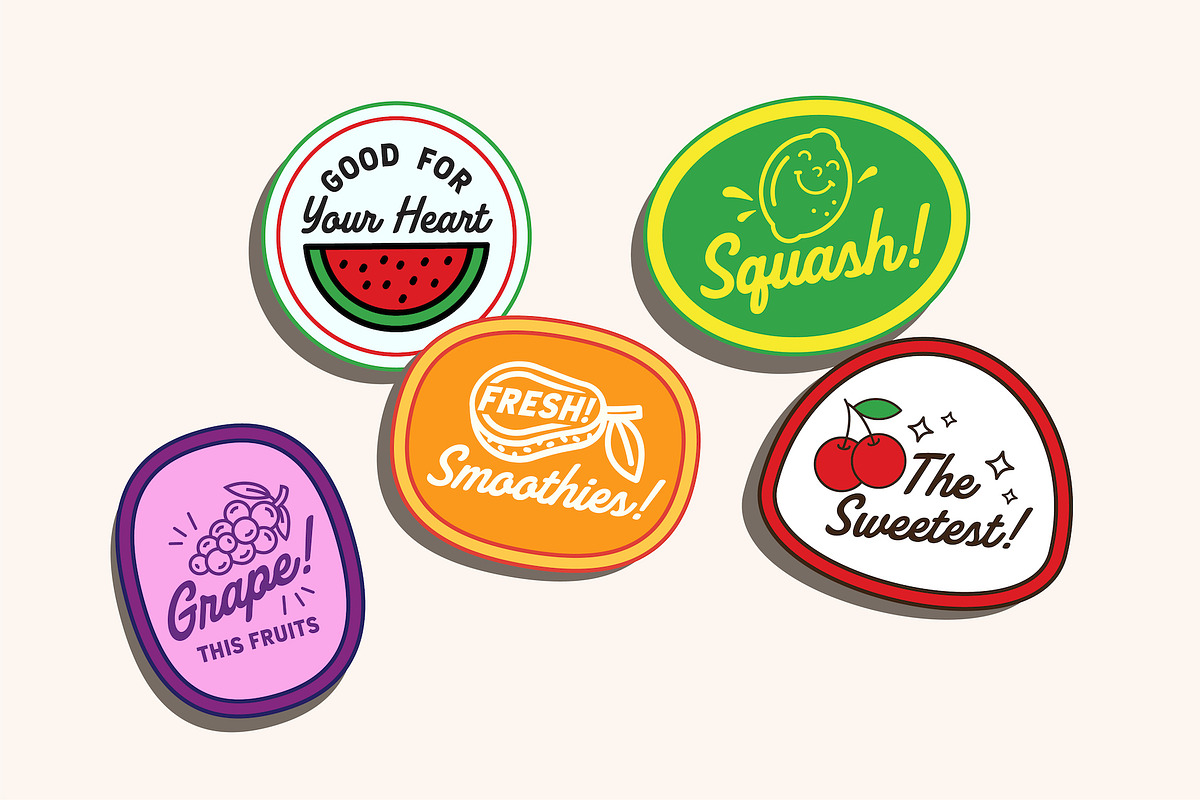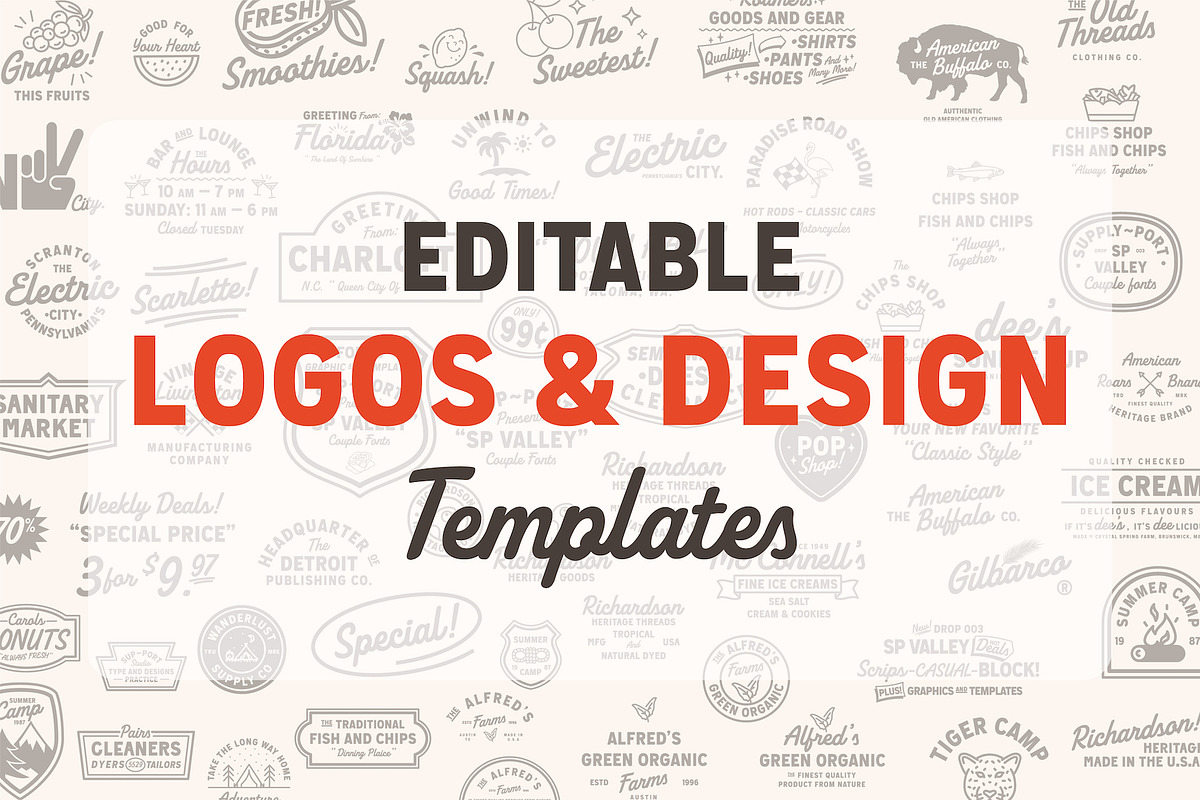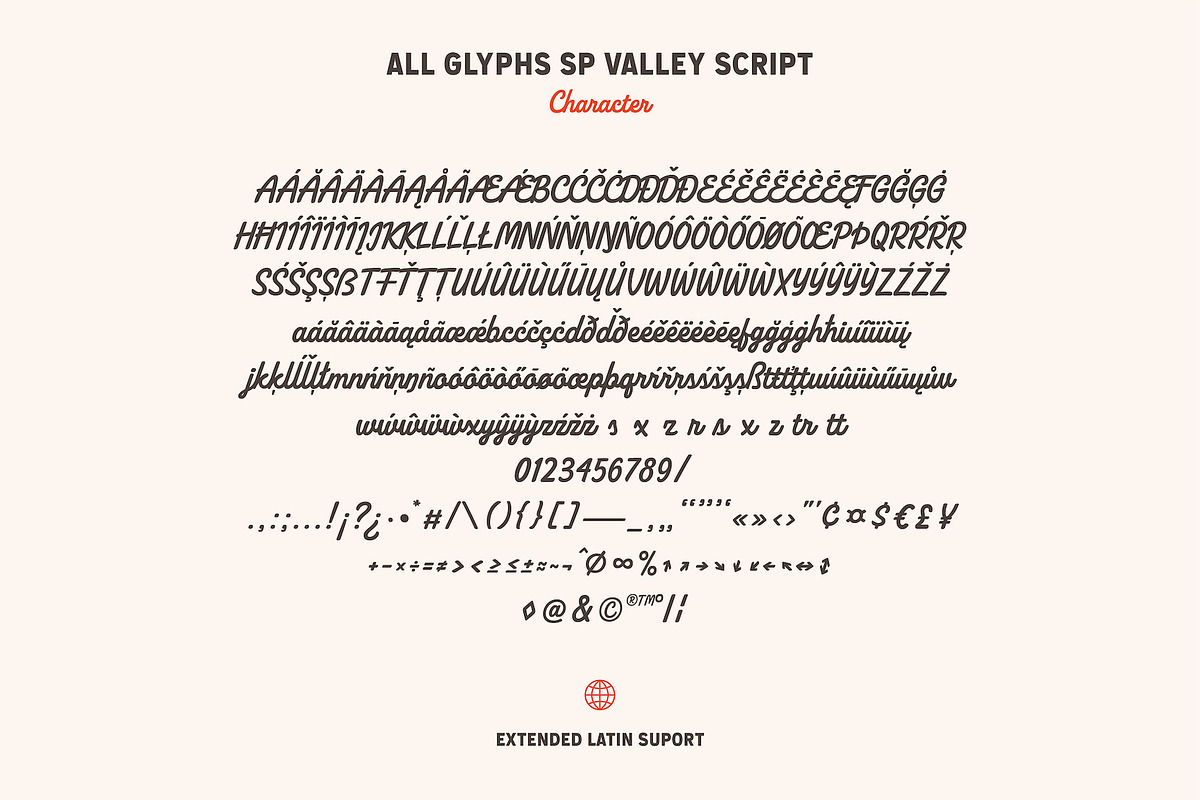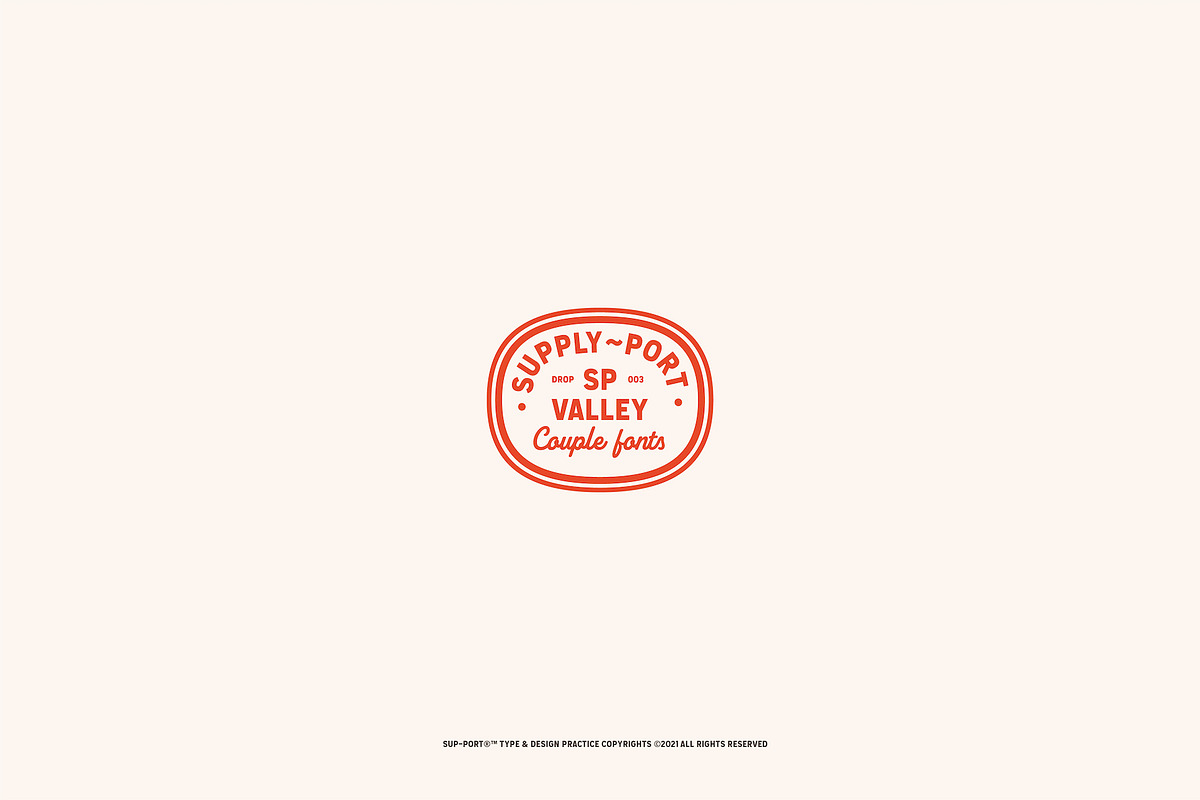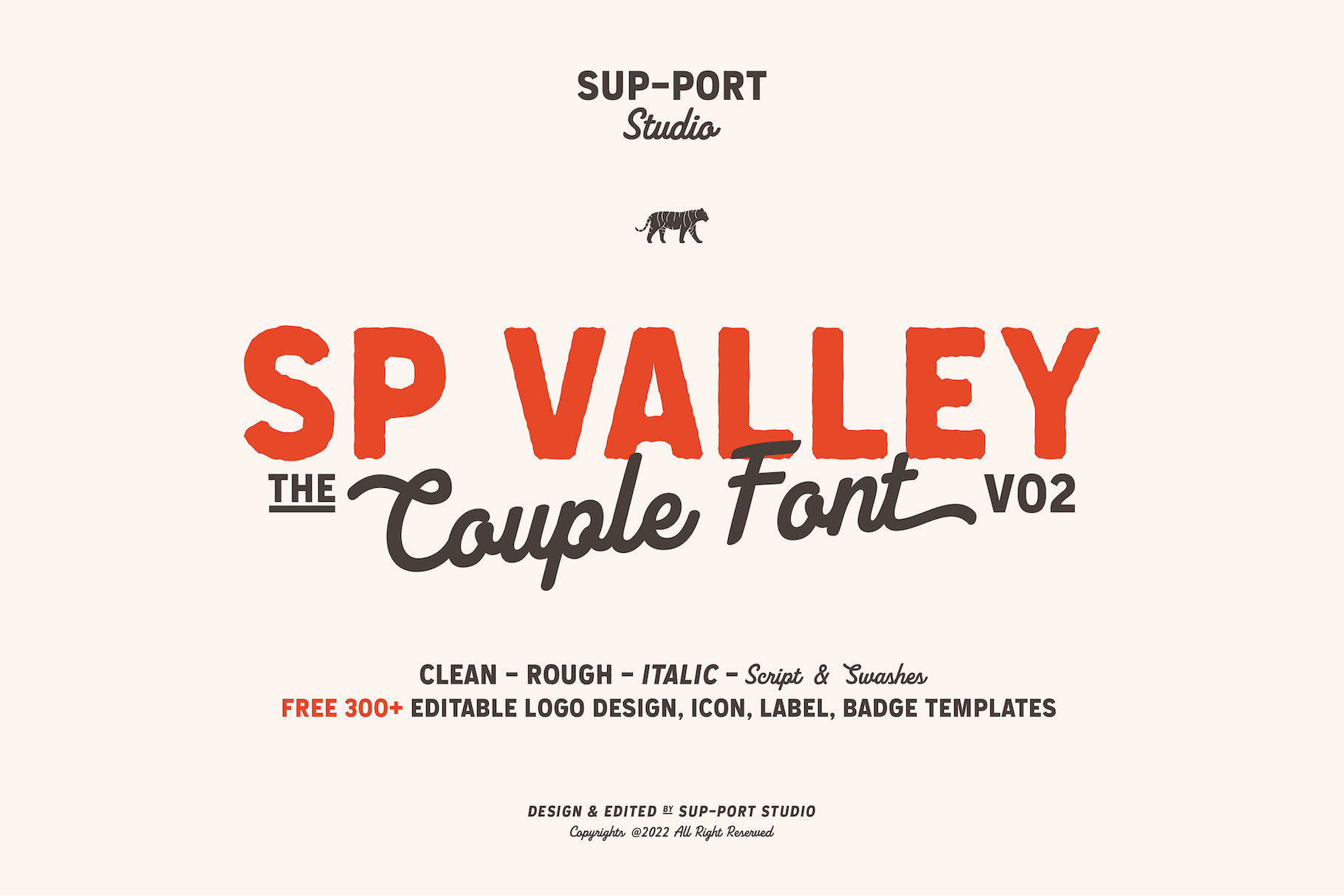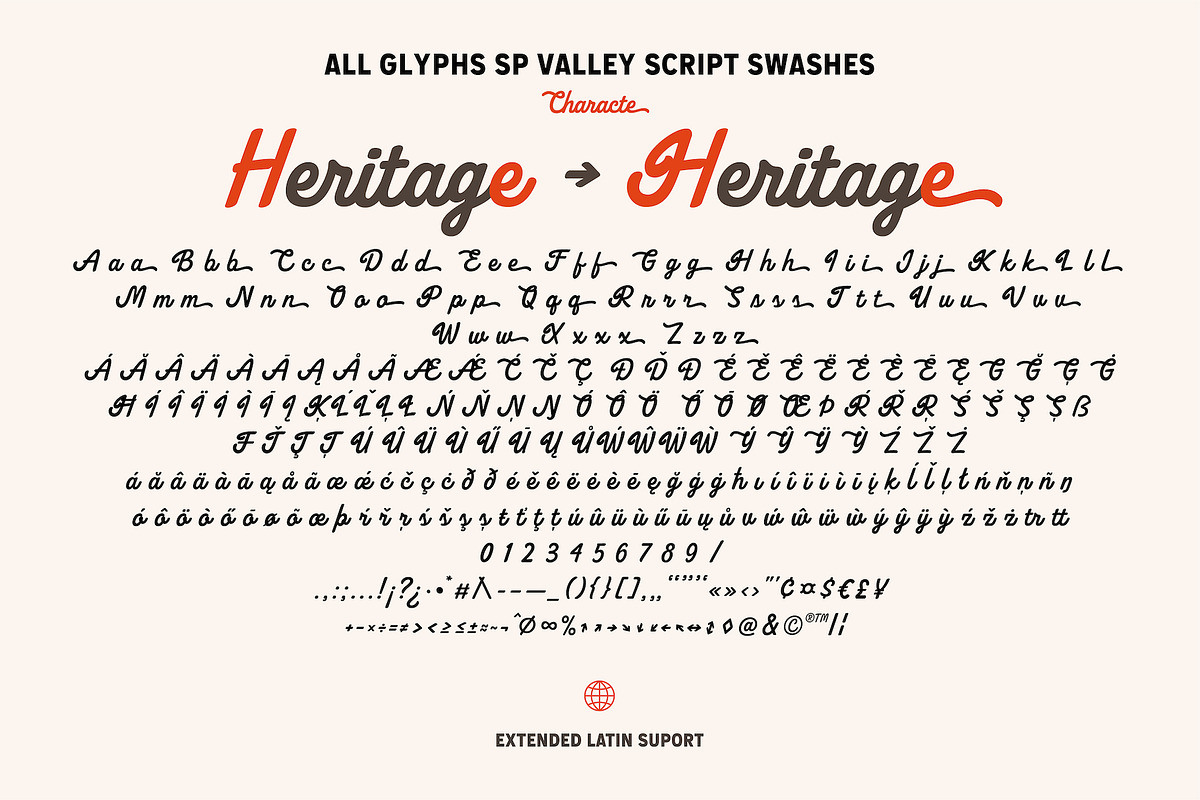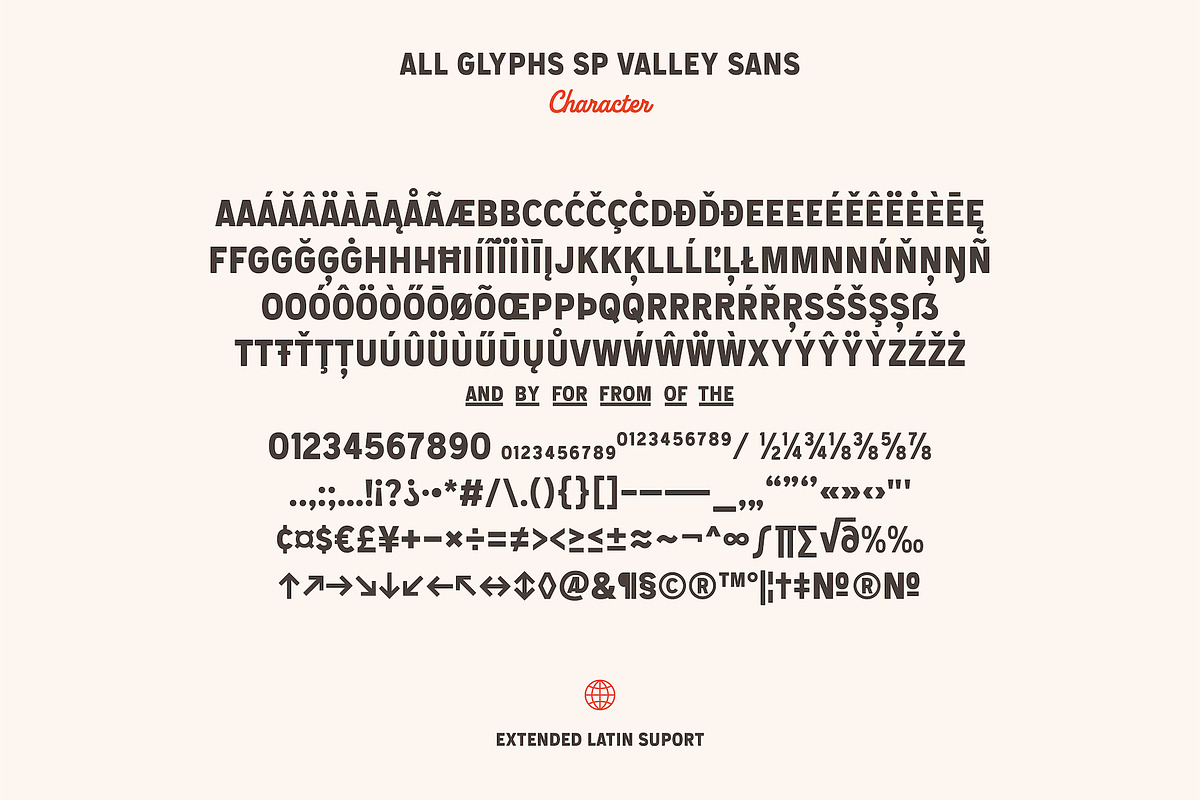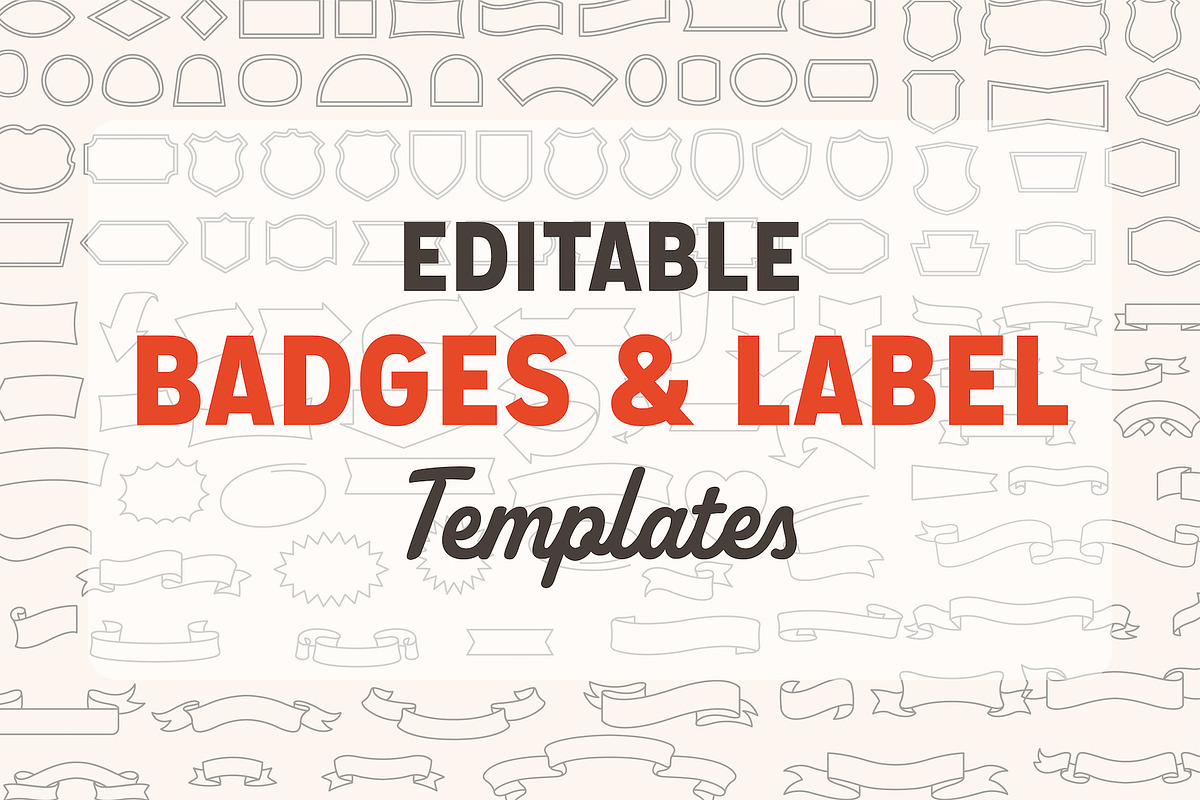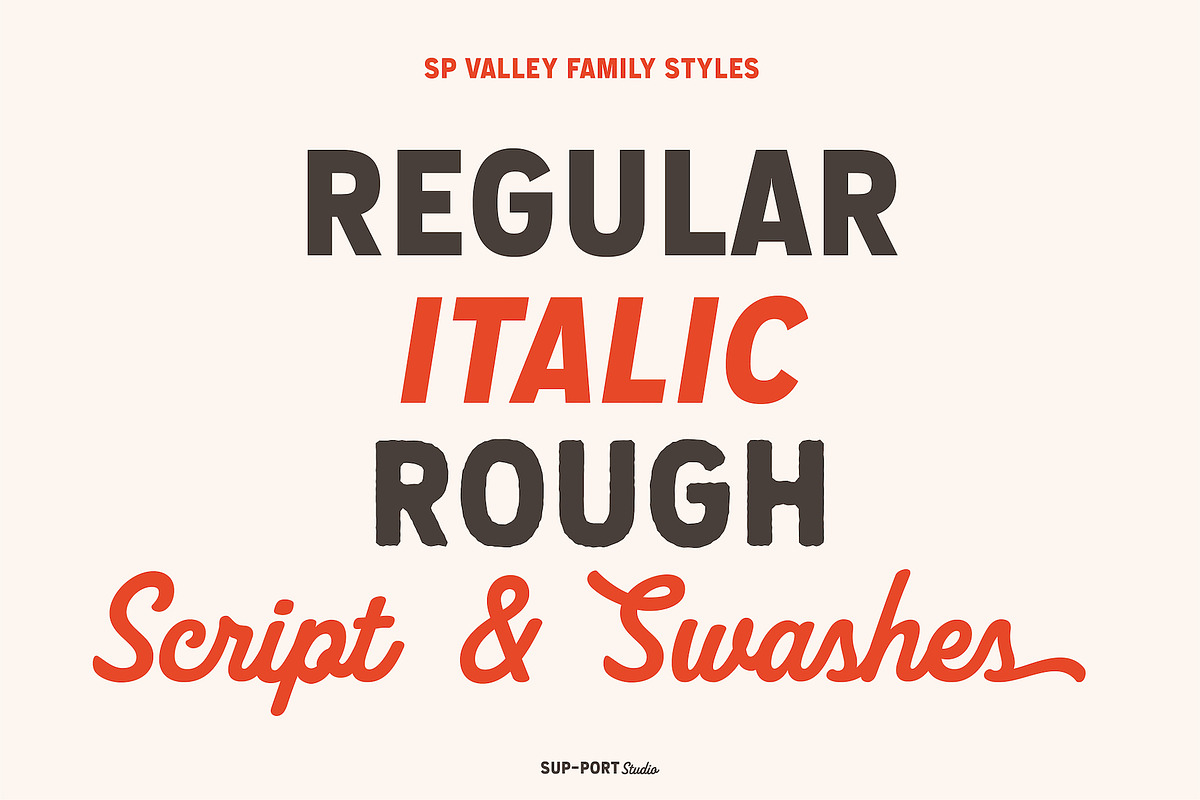
SP Valley Couple Font & Template v02
SP Valley Couple Font is a bundle of couple font (sans and script + Swashes) and graphic design templates + badge packages with a dynamic style, following the current trends, can include a modern vintage look, elegent look, and clean.
These bundle would be perfect to combine in your design. Typeface coming with opentype feature like ligature and ordinal, as well as multi-lingual support, currency figures, numerals, punctuation, arrow.
Opentype Features :
- Ordinals
- Stylistic Set
Support Language Extended Latin